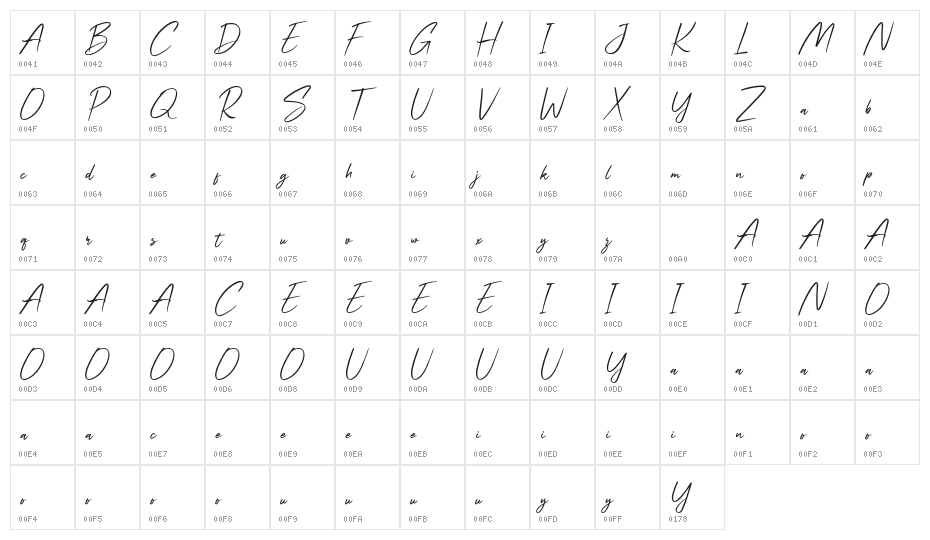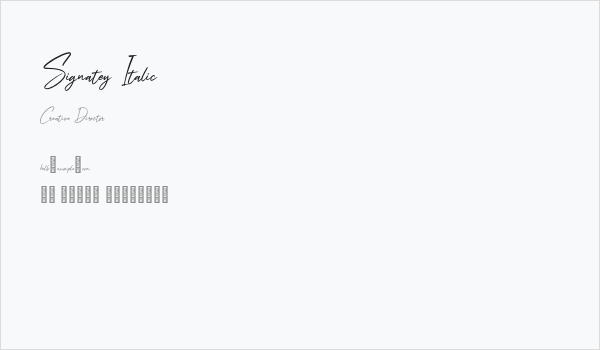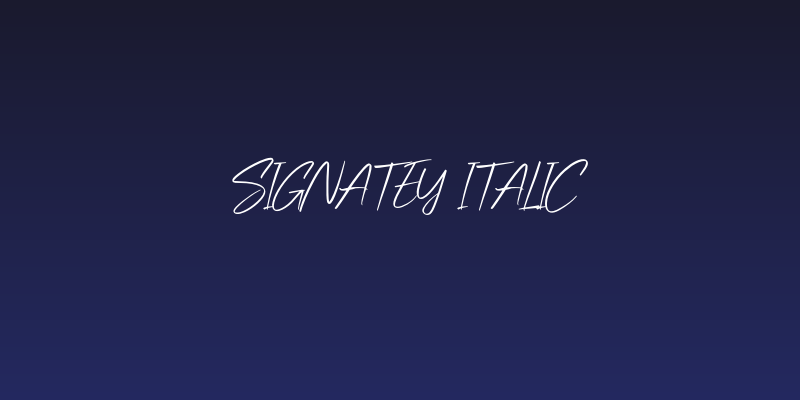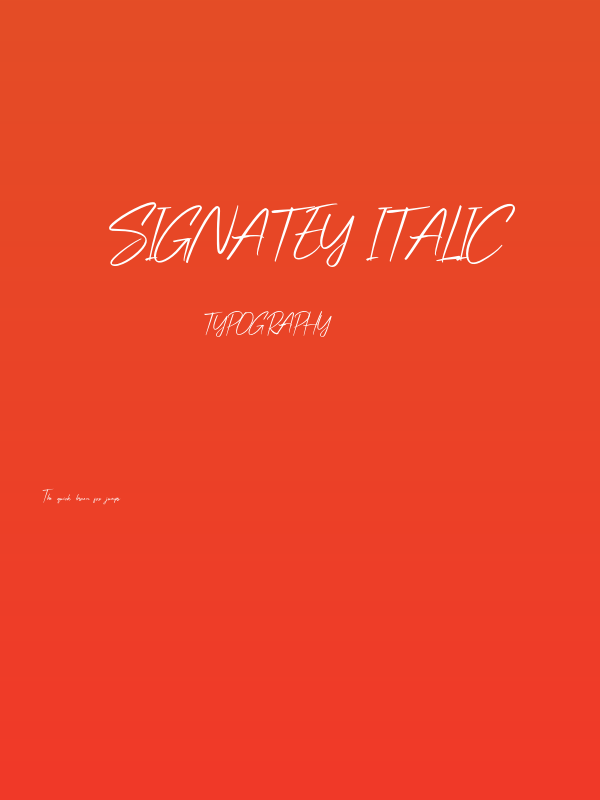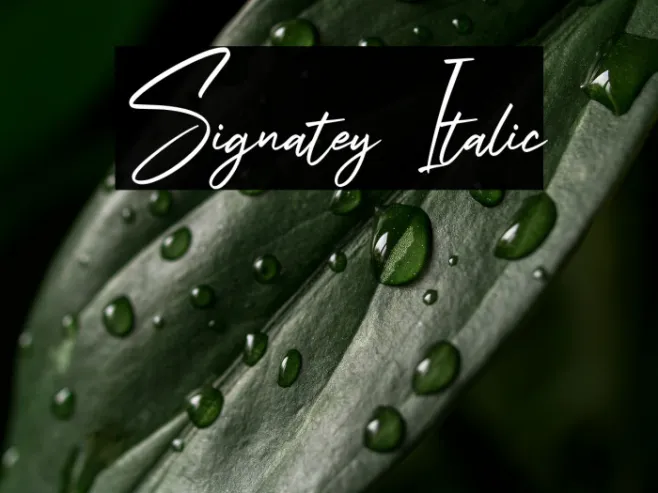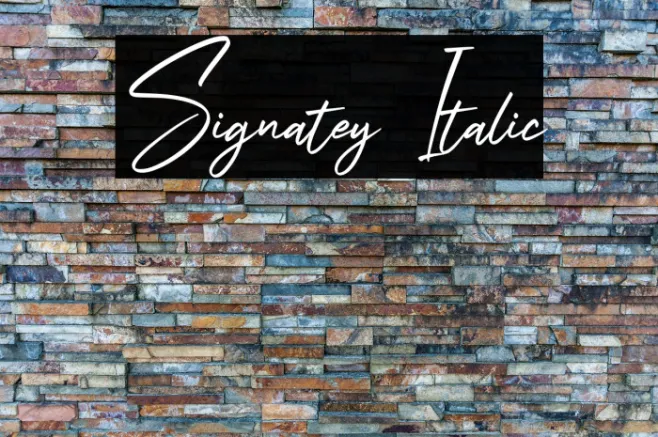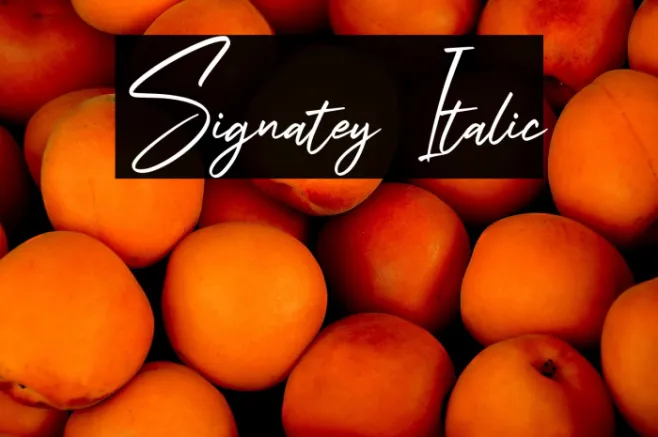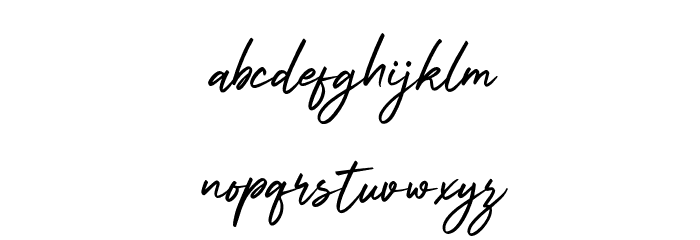
Signatey Italic Font
Signatey Italic Description
This font features a dynamic and flowing script style, characterized by its elegant and fluid letterforms. The strokes are smooth and connected, giving it a handwritten appearance. The uppercase letters are tall and slightly slanted, while the lowercase letters maintain a consistent flow with a slight slant, enhancing the cursive effect. The overall design is sophisticated, making it suitable for creative and artistic projects. The font's italic nature adds to its graceful and stylish look, making it ideal for use in designs that require a personal touch.
| Proposed Projects | Ideal for wedding invitations, greeting cards, branding, and logo design where a personal and artistic touch is desired. |